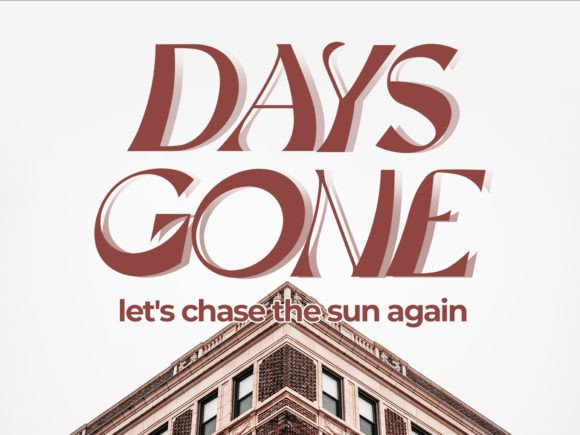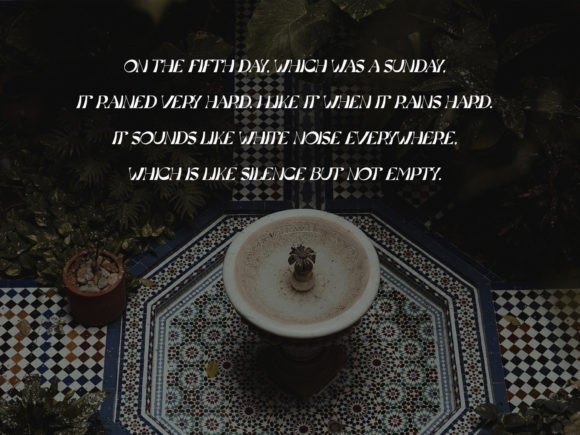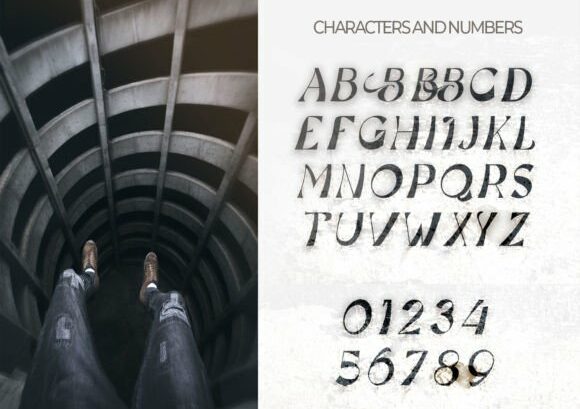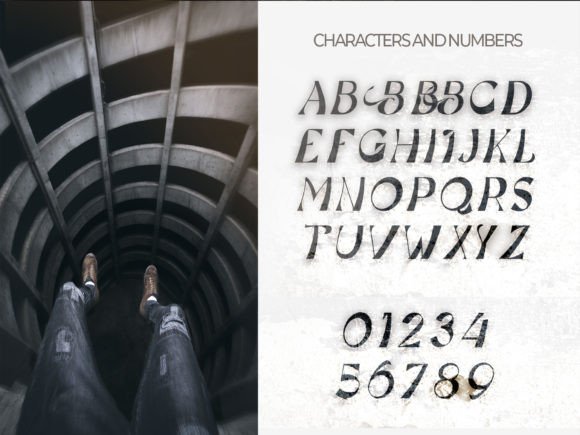
Basria Font
BASRIA FONT SPECIMEN
Basria is a simple and unique slab serif font, perfect for anyone who needs a typeface for logo designs, magazines, social media, brochures, and many more.